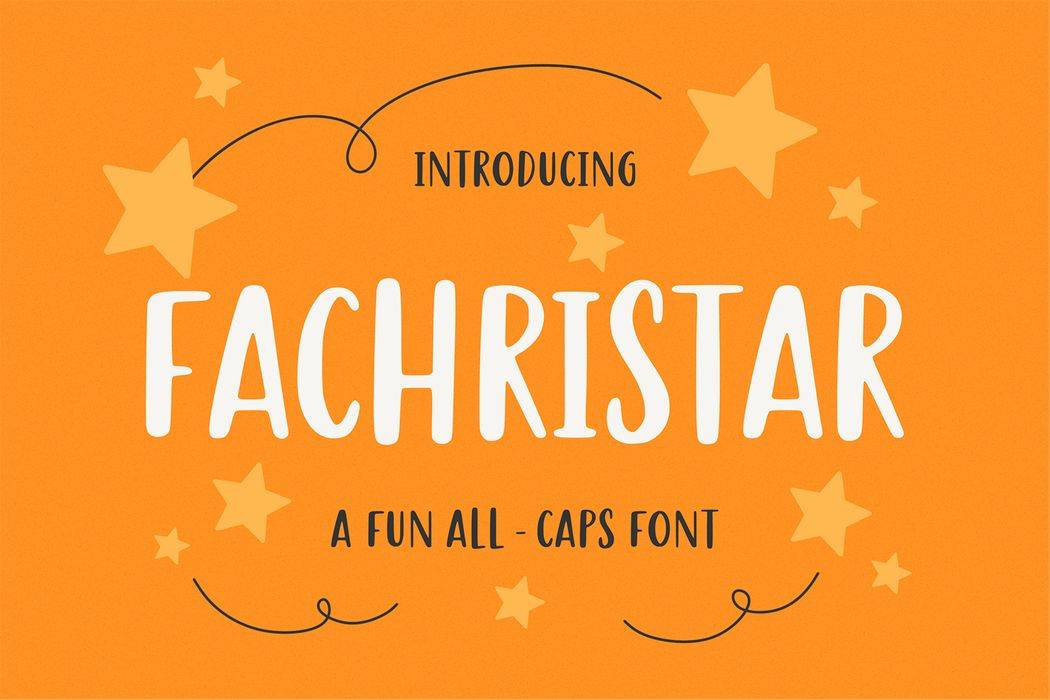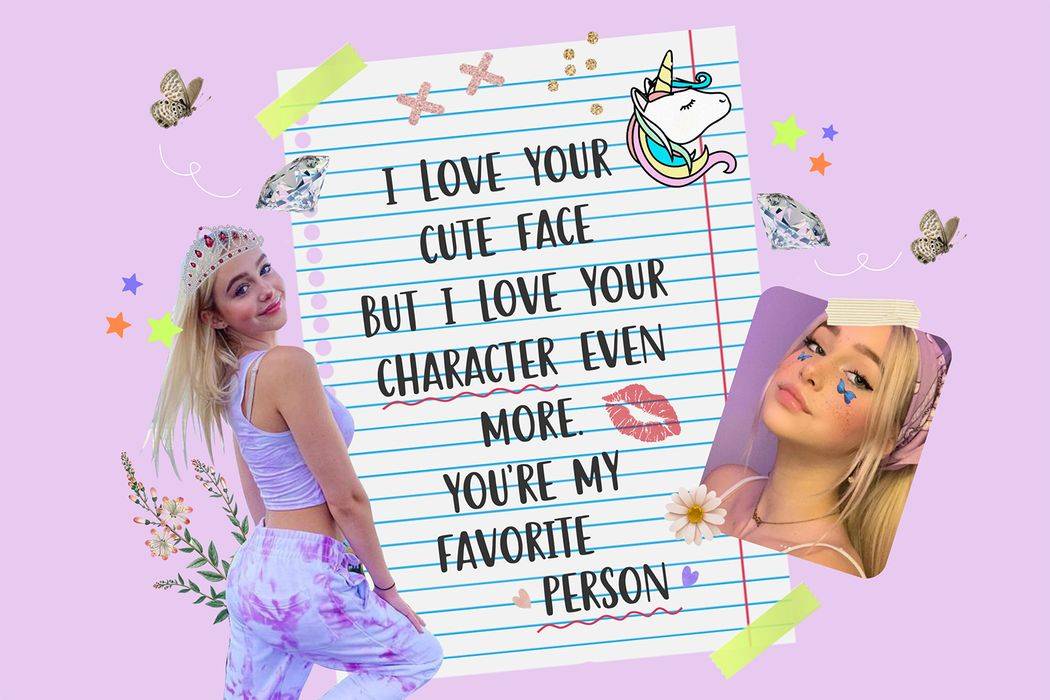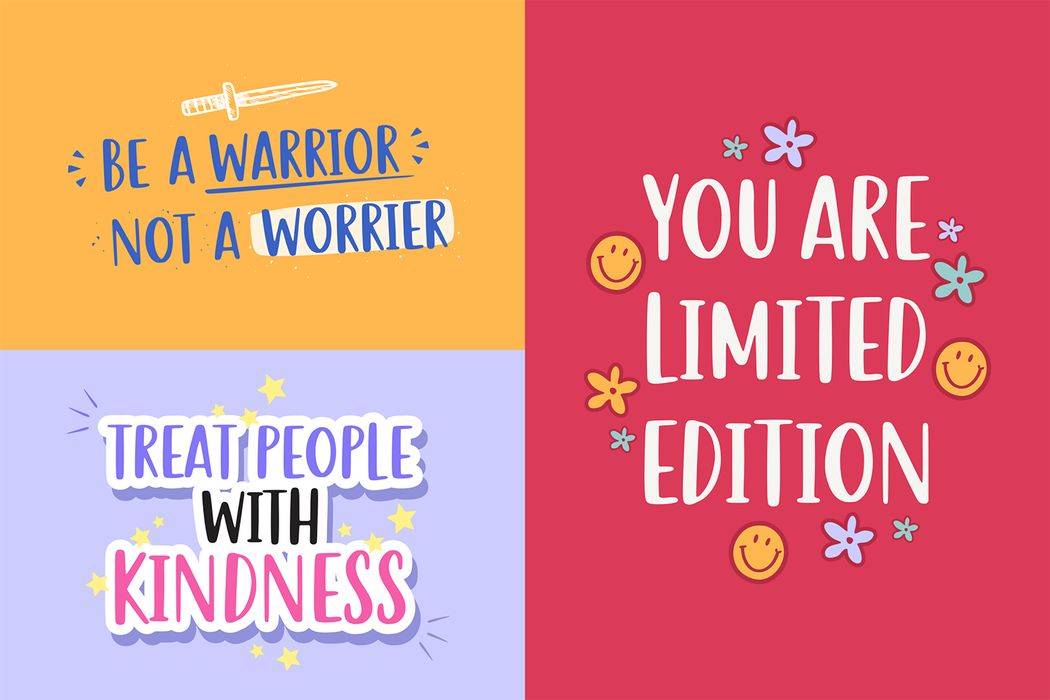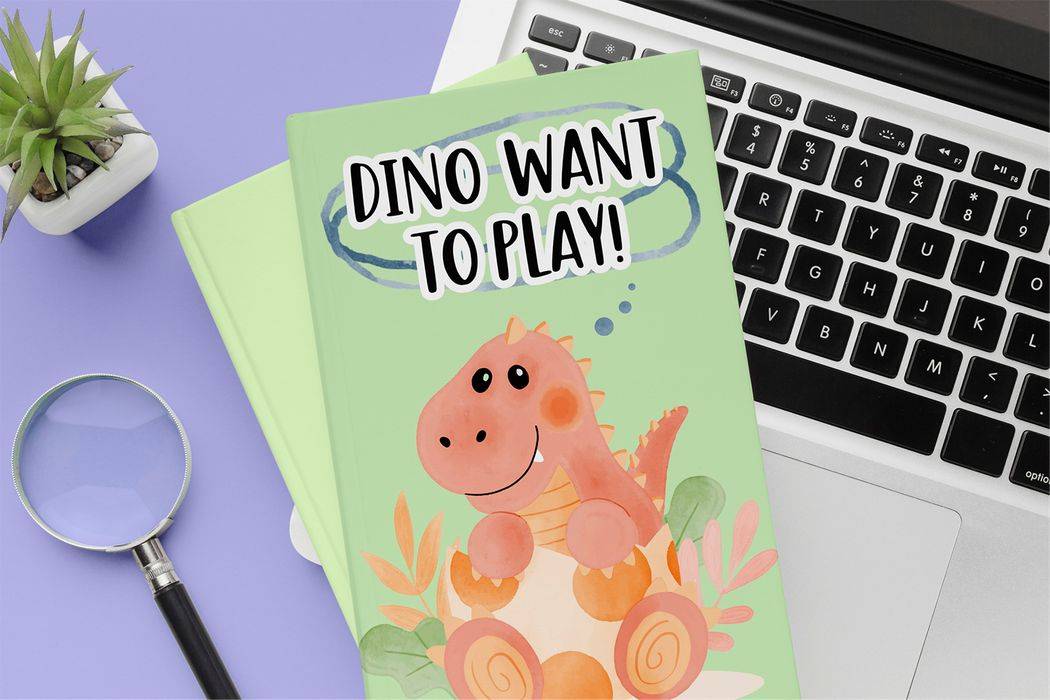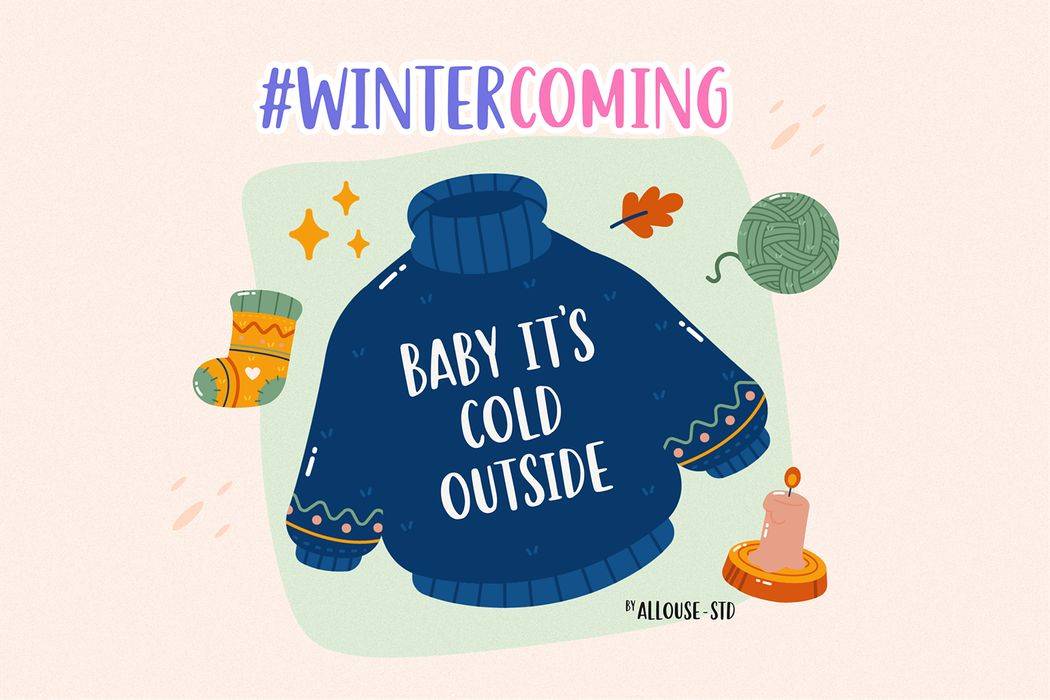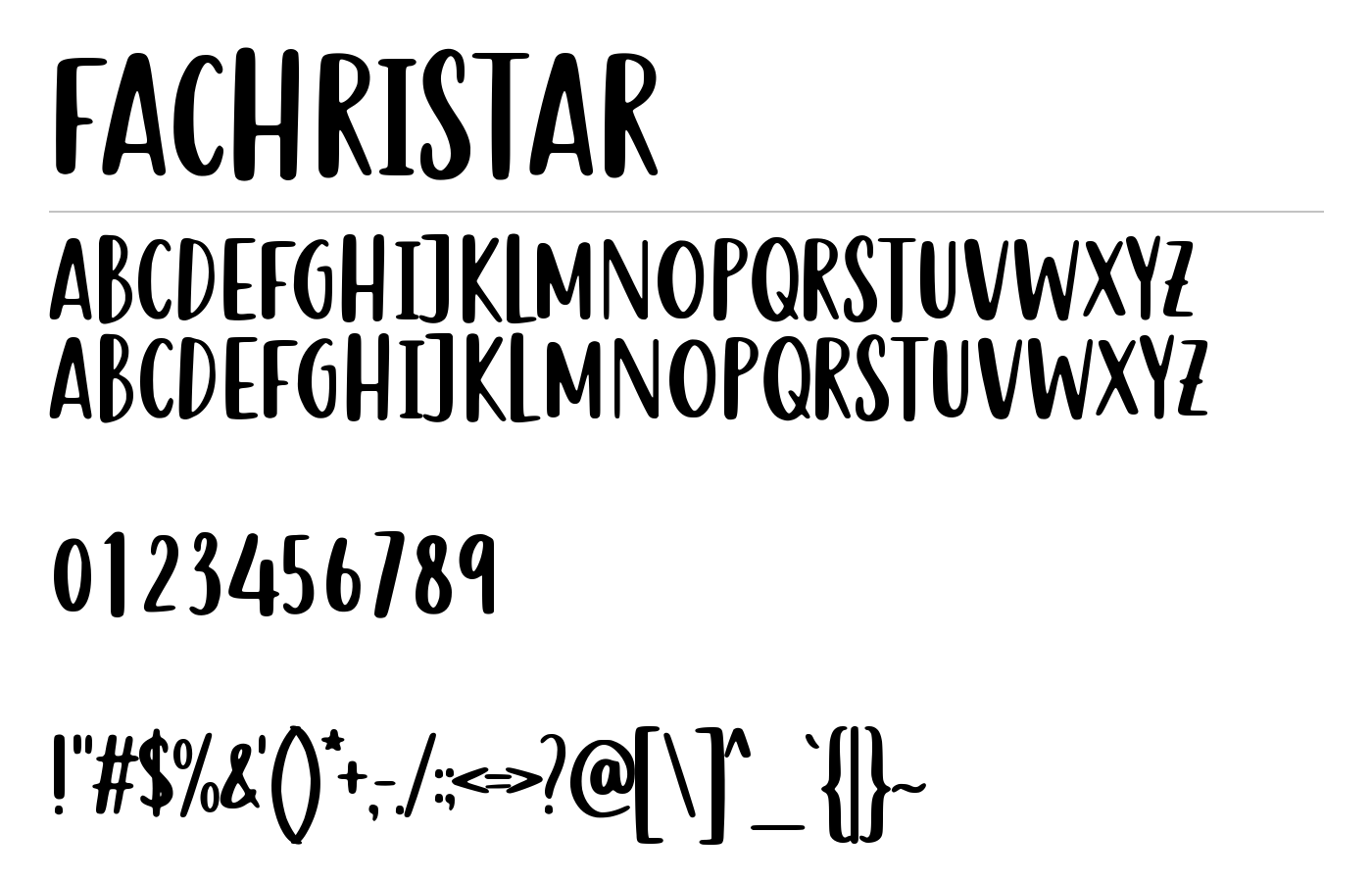
Fachristar is a playful, hand-drawn sans serif font with a tall, narrow structure and friendly, irregular strokes that give it a casual and approachable feel. Its upright letterforms and lively character shapes make it ideal for creative, informal designs such as children’s books, packaging, and fun branding projects. This font works well where a personal, whimsical touch is needed to convey warmth and charm.
Fachristar Font